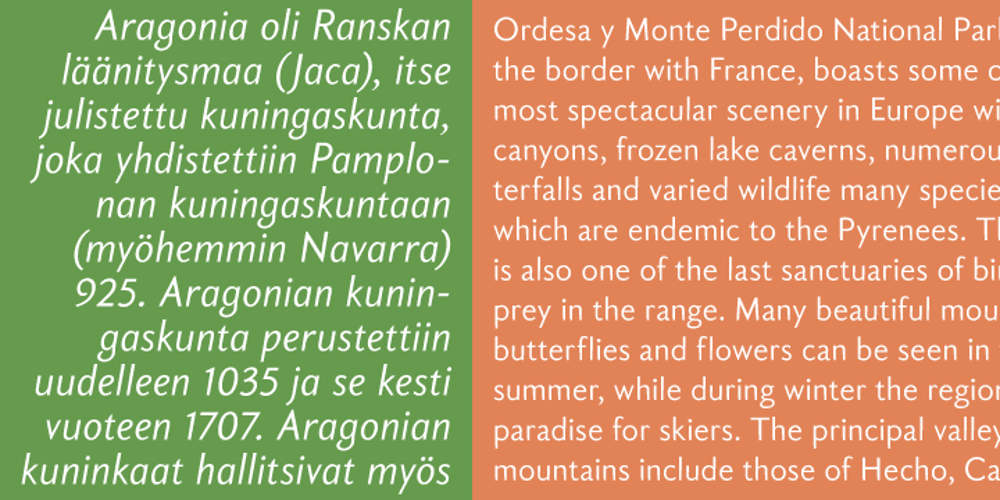
Aragon Sans Font Family was designed by Hans van Maanen and published by Canada Type. Aragon Sans contains 5 styles and family package options. Designed as a companion to its roman namesake, Aragon Sans is a novel approach to the humanist sans serif. Using the underlying blueprint of true and trusted 16th century forms, its humanism is deeply rooted in fine typographic tradition. By also using the same idea as its roman counterpart, where the stems gradually thicken as they go higher, it becomes a unique breed of sans serif, conservative, and legible in small text, and attractively modern in titling setting.